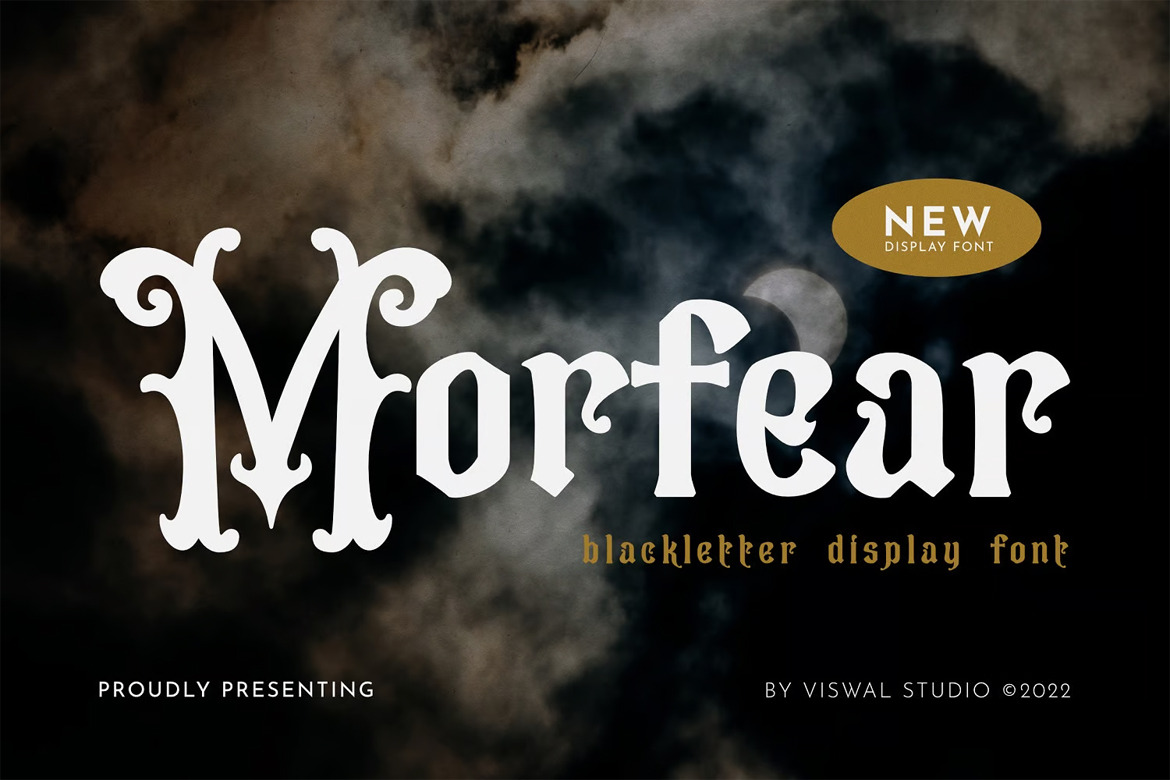
Morfear - Vintage Font
Presenting Morfear Is A Vintage Font.
Can Make It Easier To Convey The Message In Your Design. Font Is Suitable For Logo, Labels, Badge, Branding, Magazine, Poster, Title, Gigs, Covers And Etc. Our Fonts Have Uppercase & Lowercase, Numeral & Punctuation, And Opentype Features. For Amazing Designs You Can Mix With Other Fonts As A Complement.